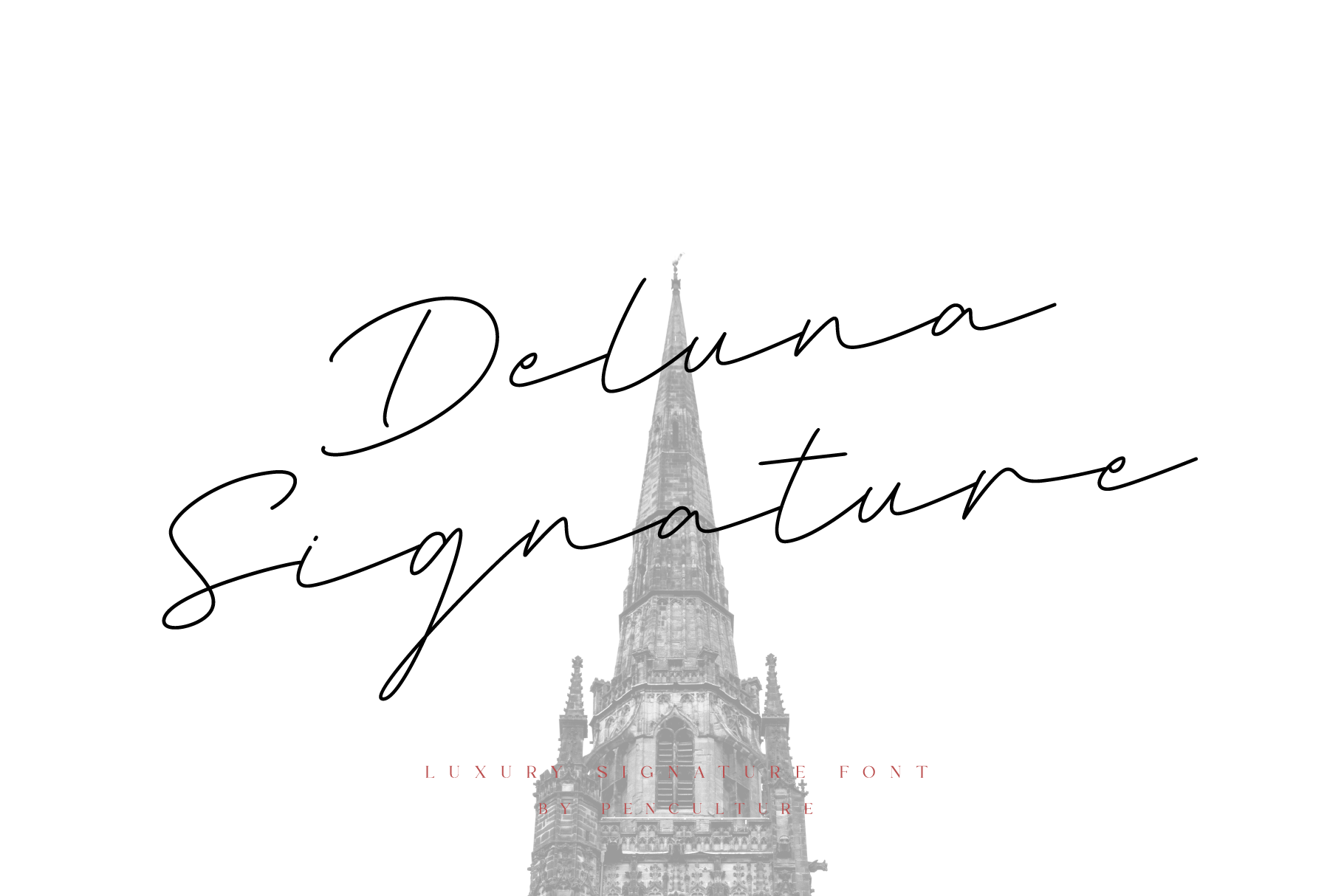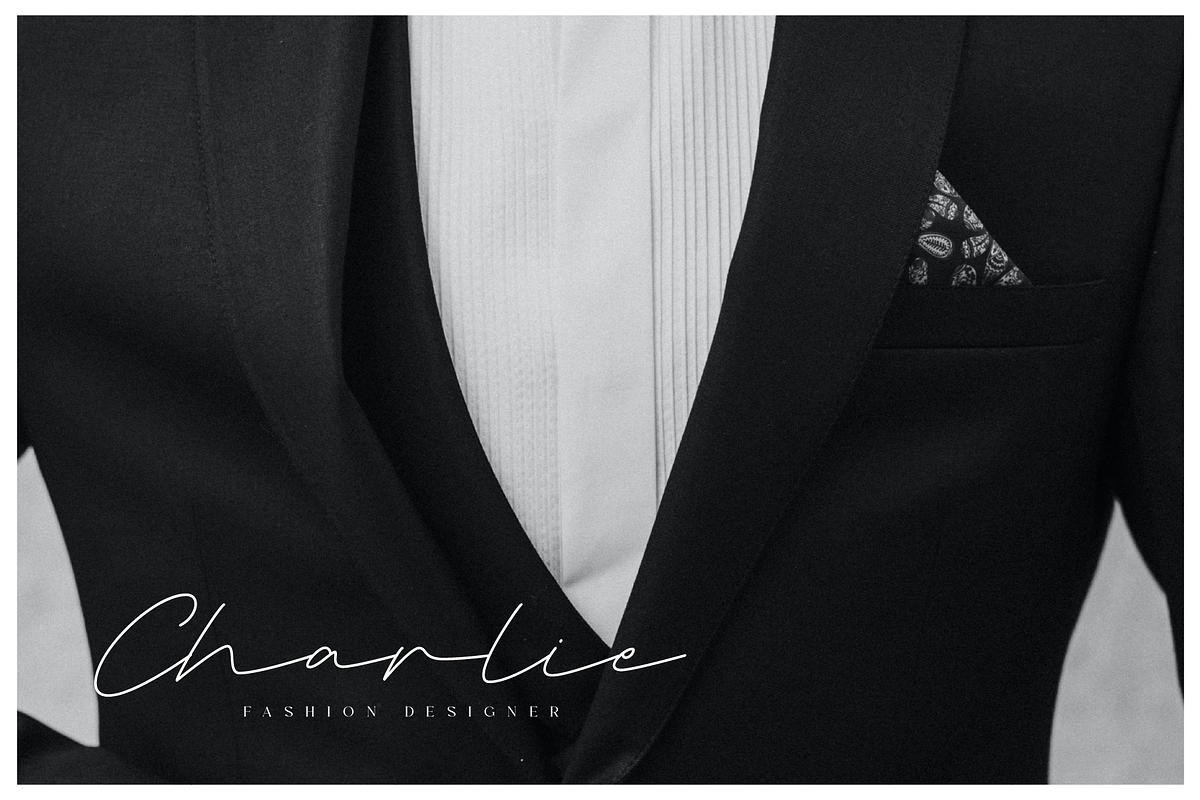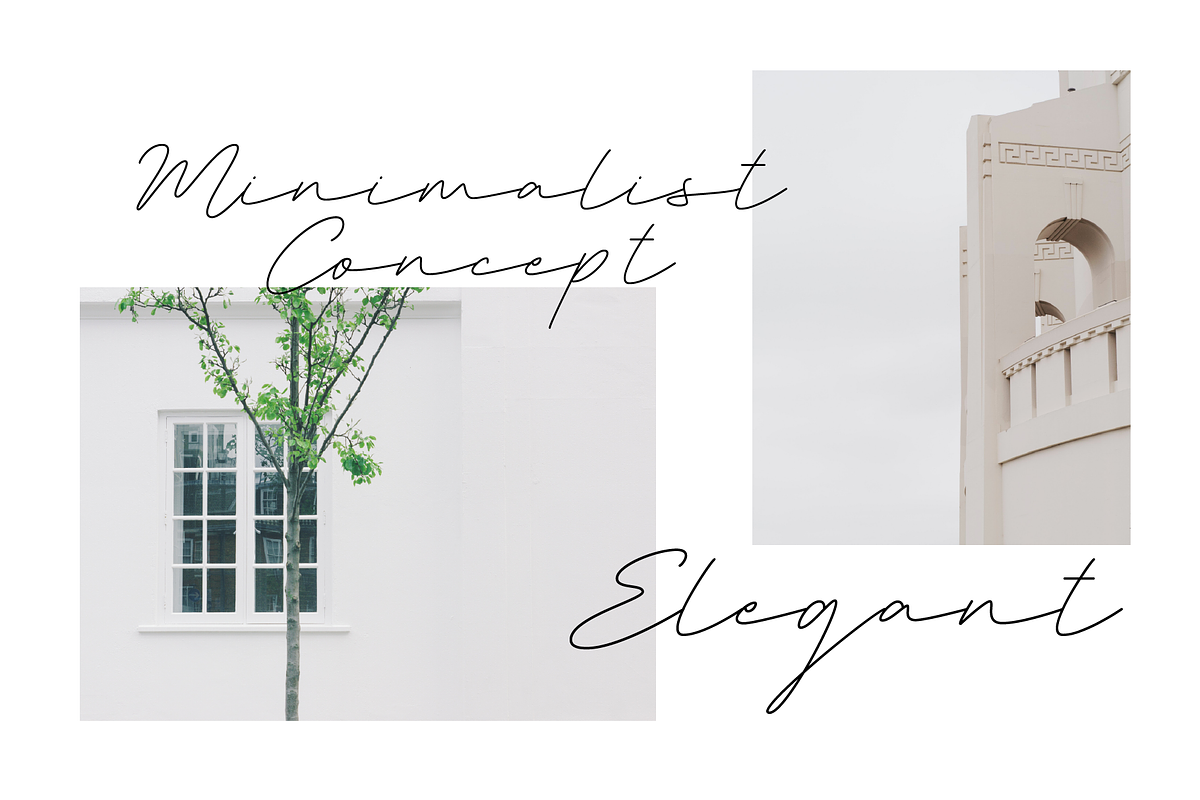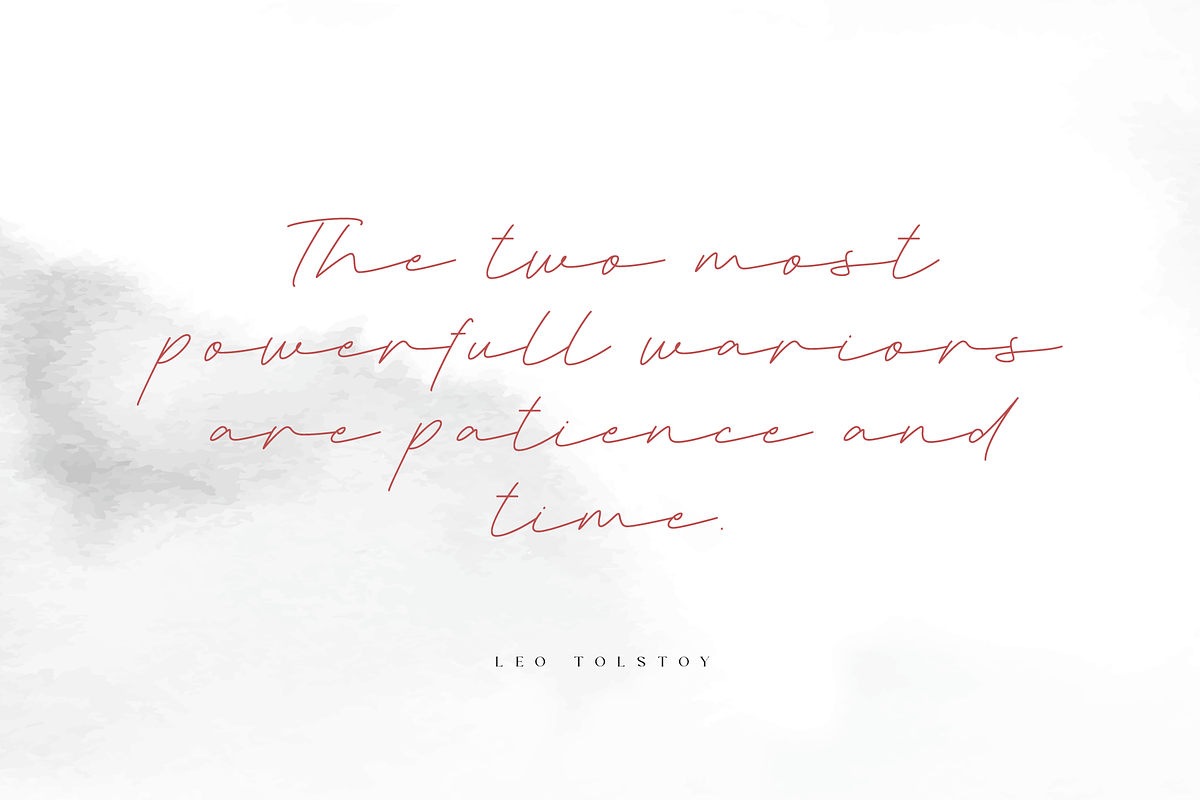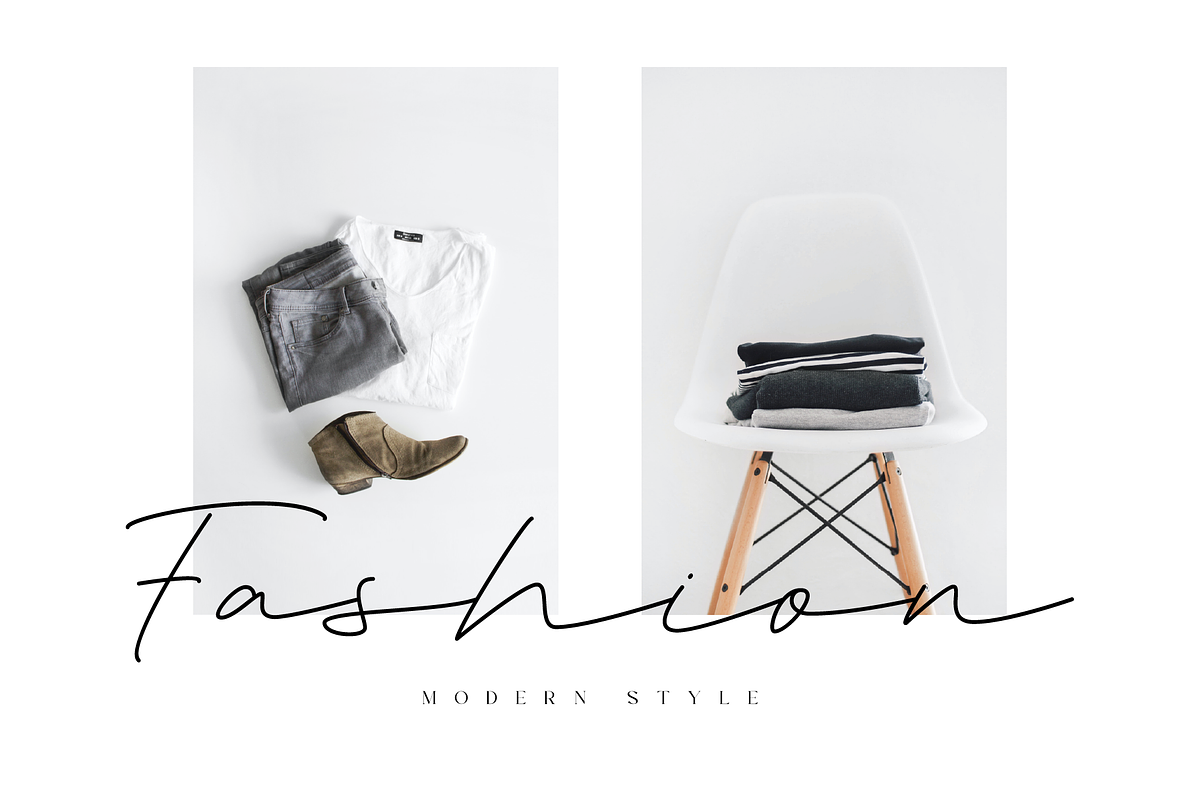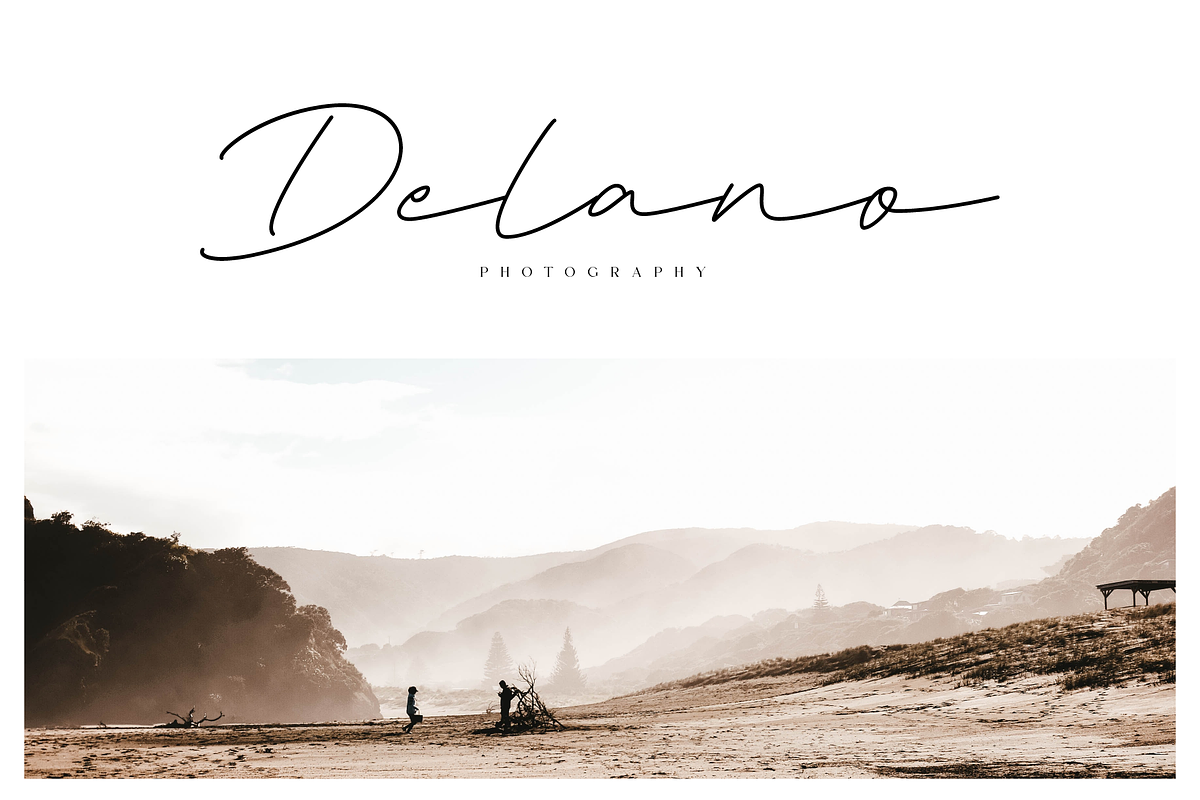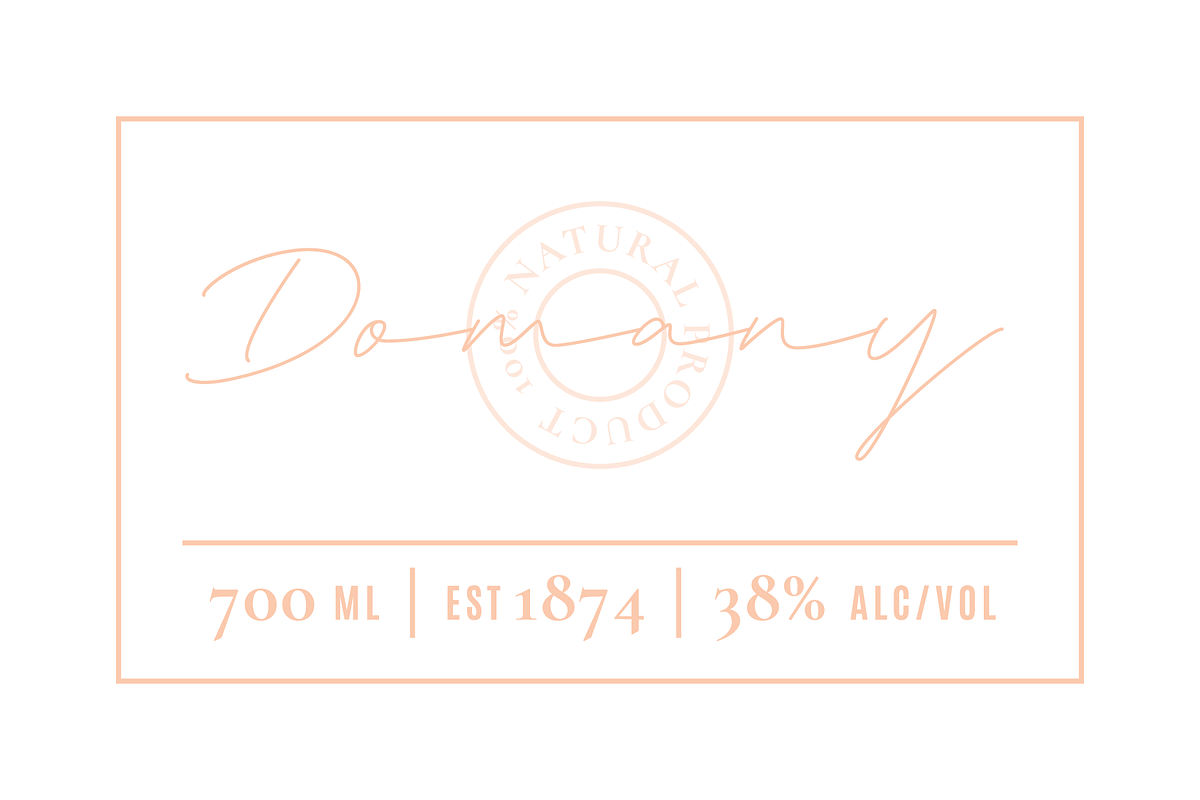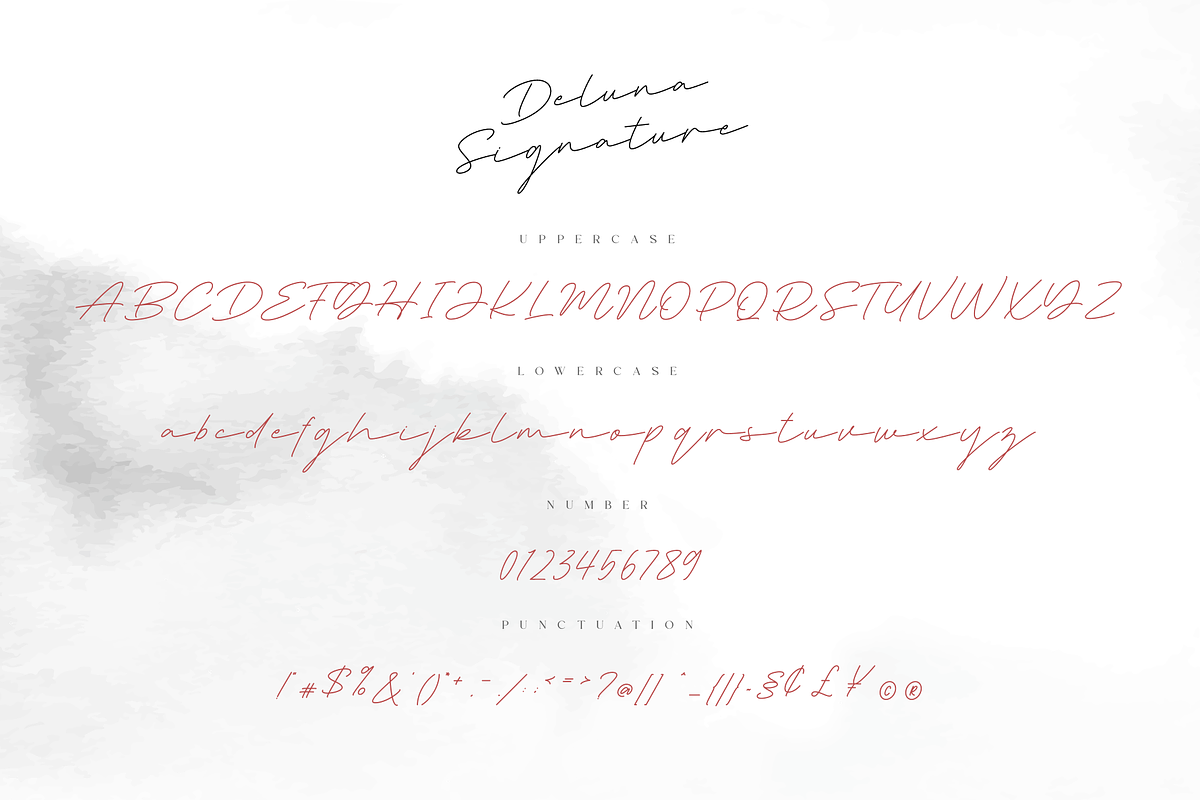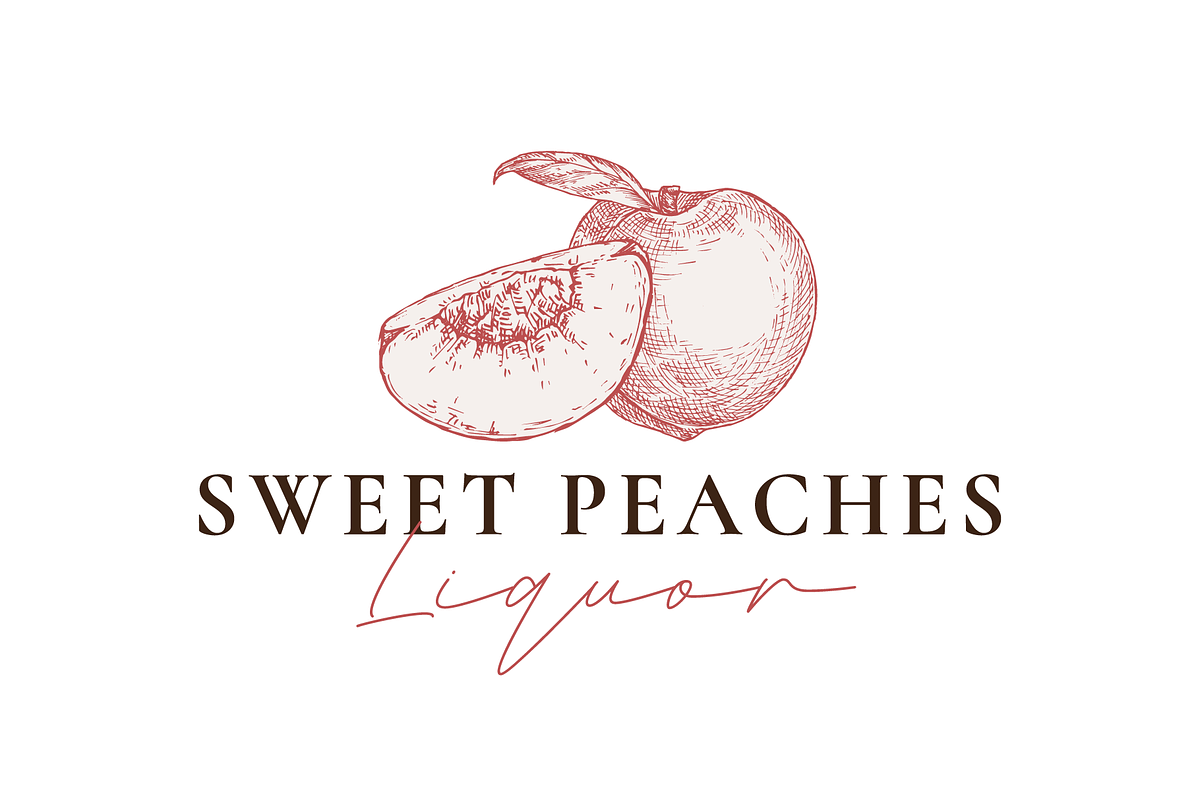
Deluna Signature Font
Introducing “Deluna Signature Font”
Deluna Signature is modern and luxury signature font. This font comes with a monoline style and with a minimalist concept. This font is suitable for various purposes such as branding, logo design and many more.